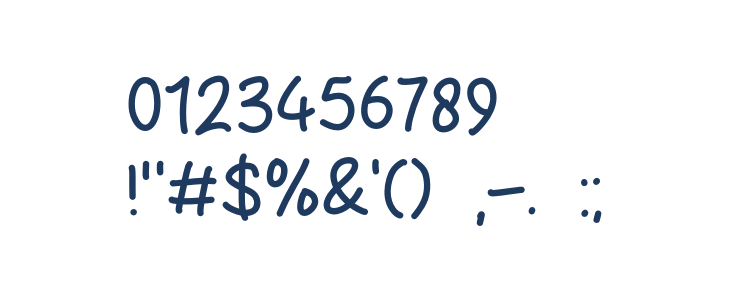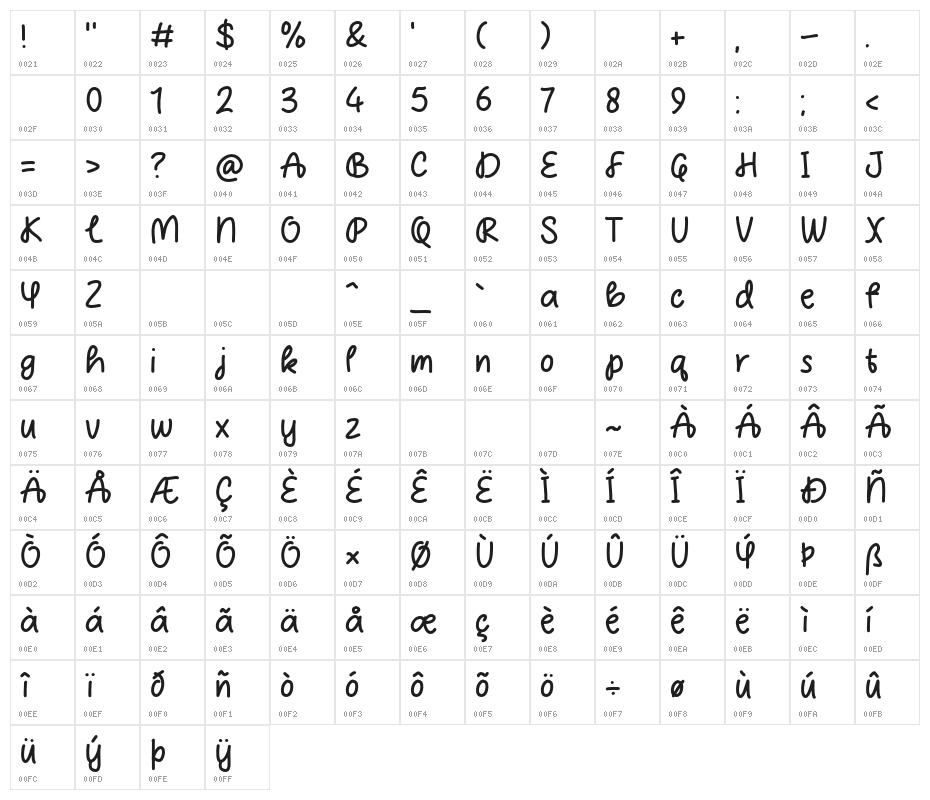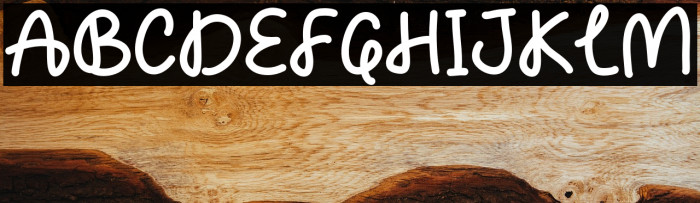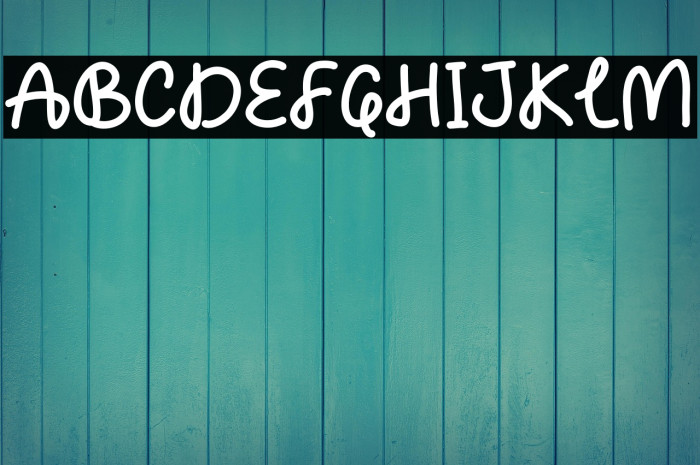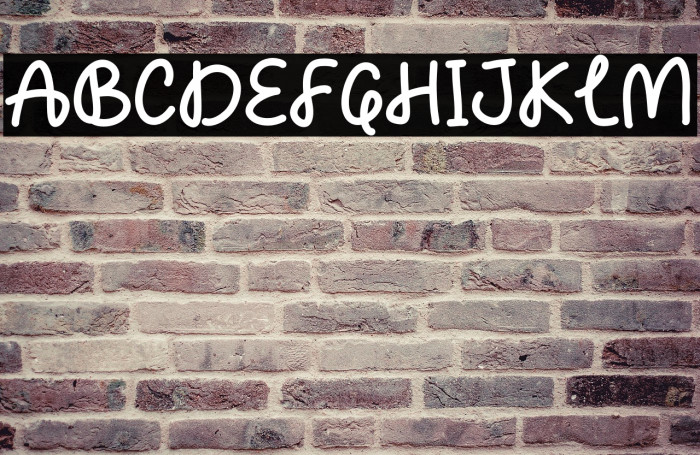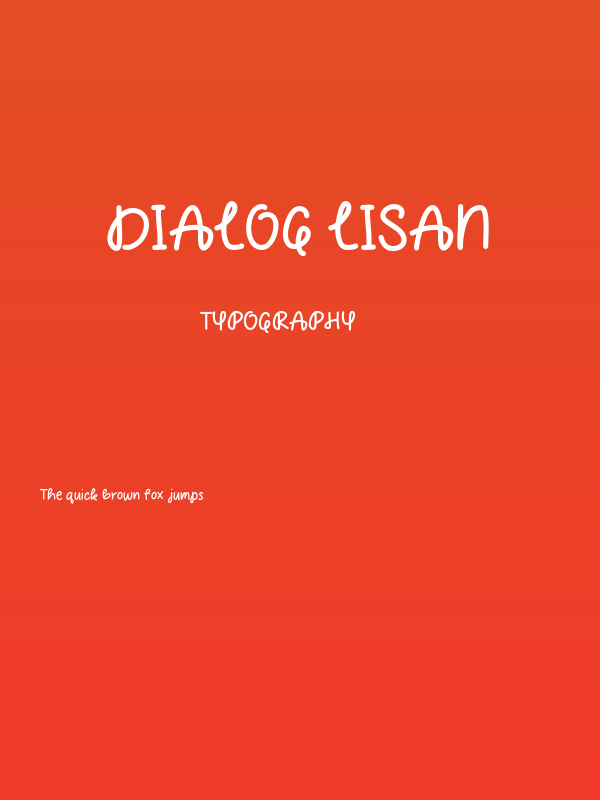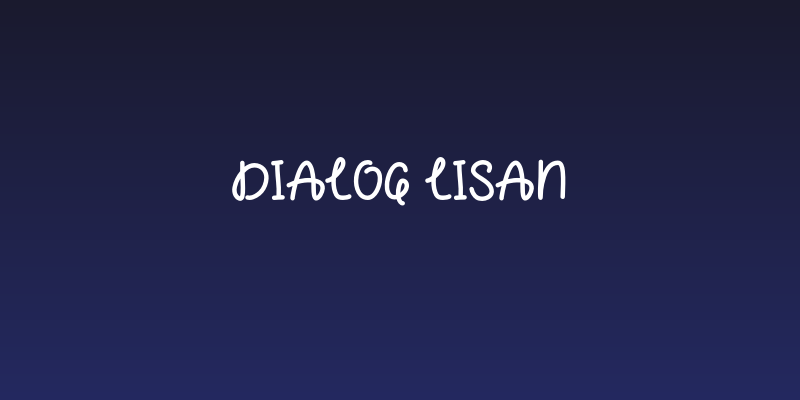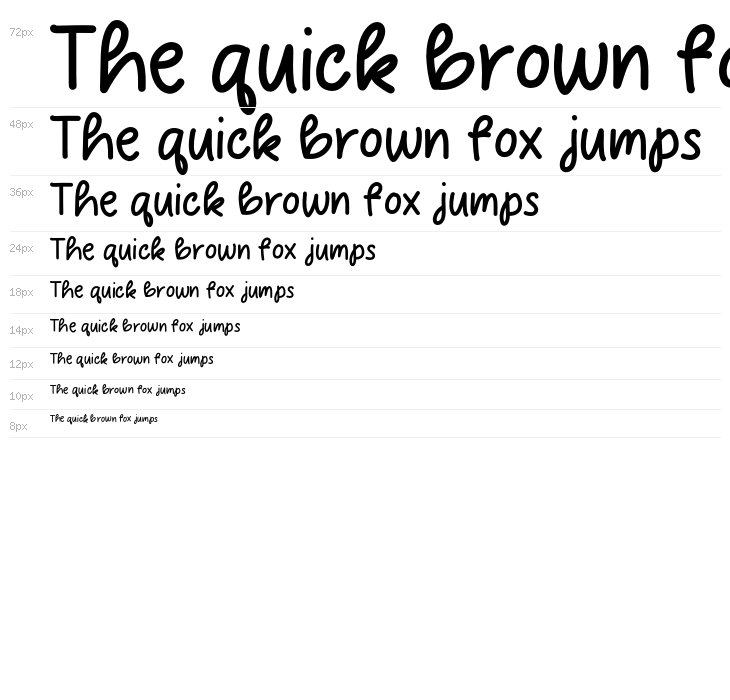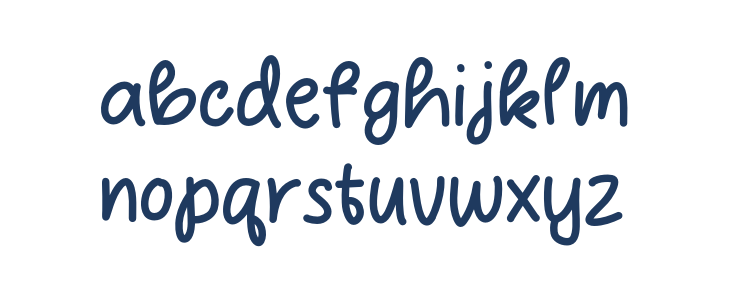
Dialog Lisan Font
Dialog Lisan Description
This font features a playful and casual handwritten style, characterized by smooth, rounded strokes and a consistent flow. The letters are slightly slanted, giving it a dynamic and lively appearance. The uppercase and lowercase letters maintain a uniform height, contributing to its legibility. Numbers and special characters are crafted with the same playful touch, ensuring a cohesive look across all text. The font's informal nature makes it ideal for projects that require a personal or friendly tone.
| Proposed Projects | Ideal for greeting cards, children's books, personal blogs, and informal invitations. |